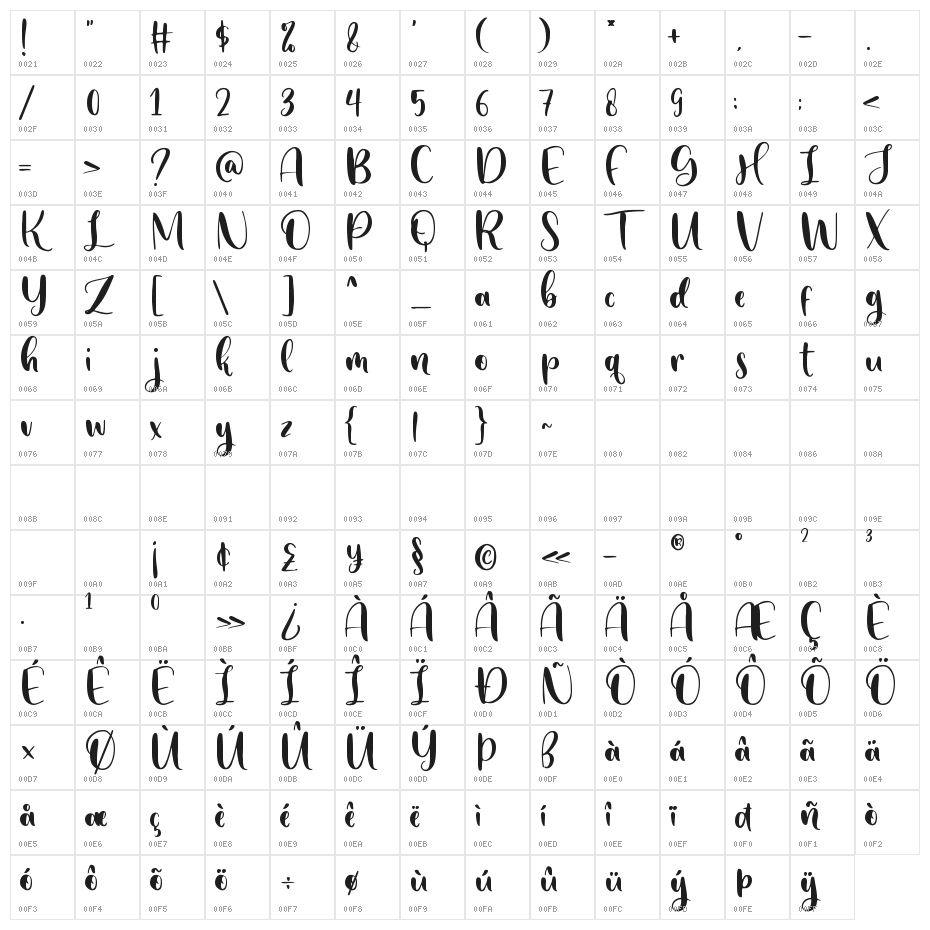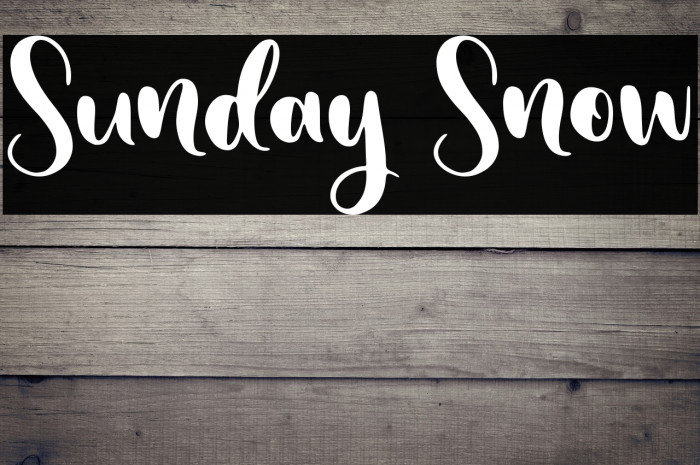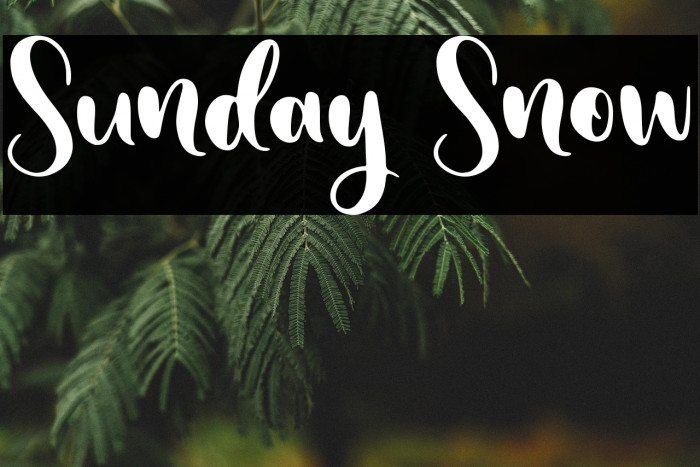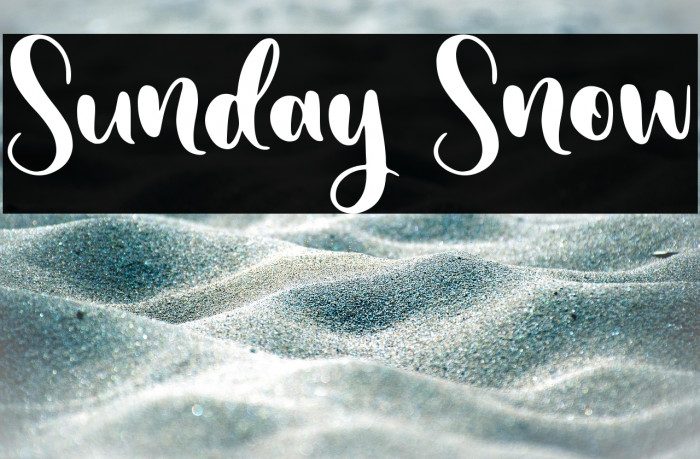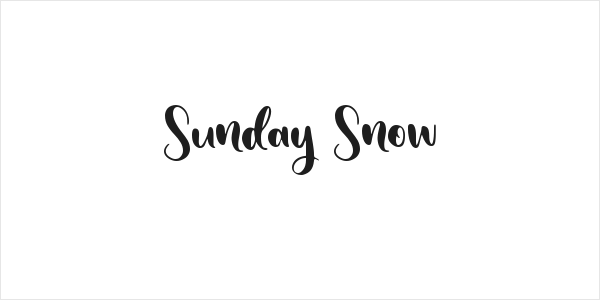
Sunday Snow Font
Sunday Snow Description
This font features a playful and whimsical script style, characterized by its flowing, cursive letters with a hand-drawn appearance. The uppercase letters are bold and dynamic, with varying stroke widths that add a lively and energetic feel. The lowercase letters maintain a consistent style, with loops and curves that enhance the font's overall charm. Numbers and special characters are designed to match the playful aesthetic, making them suitable for creative and informal applications. The font's unique style is perfect for adding a personal touch to any project.
| Use Case | Logos, Headlines, Invitations |
| Proposed Projects | Ideal for greeting cards, invitations, branding, and social media graphics. |